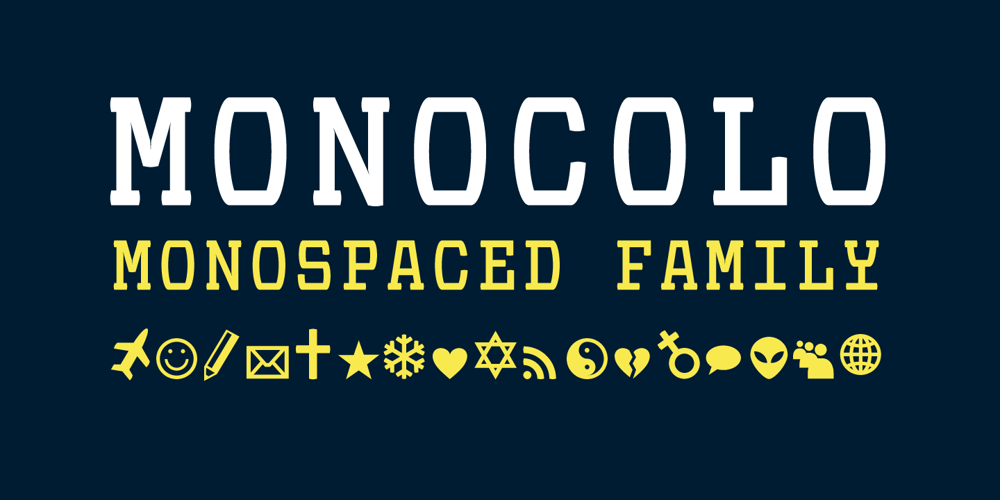
Monocolo Font Family was designed by published by Kprojects. Monocolo contains 2 styles and family package options. Monocolo is the result of a reflection on communication and of the language evolution in the new media. For this reason, some emoticons have been added to the usual glyphs and symbols and icons have been added to the regular. These glyphs, through the use of Discretionary Ligatures (DL) feature, can be recalled by using their name or idea associated with them (in the English language). This feature is designed to retrieve the icons quickly and not to be applied to a text, therefore you have to pay attention to compound words when used through DL.